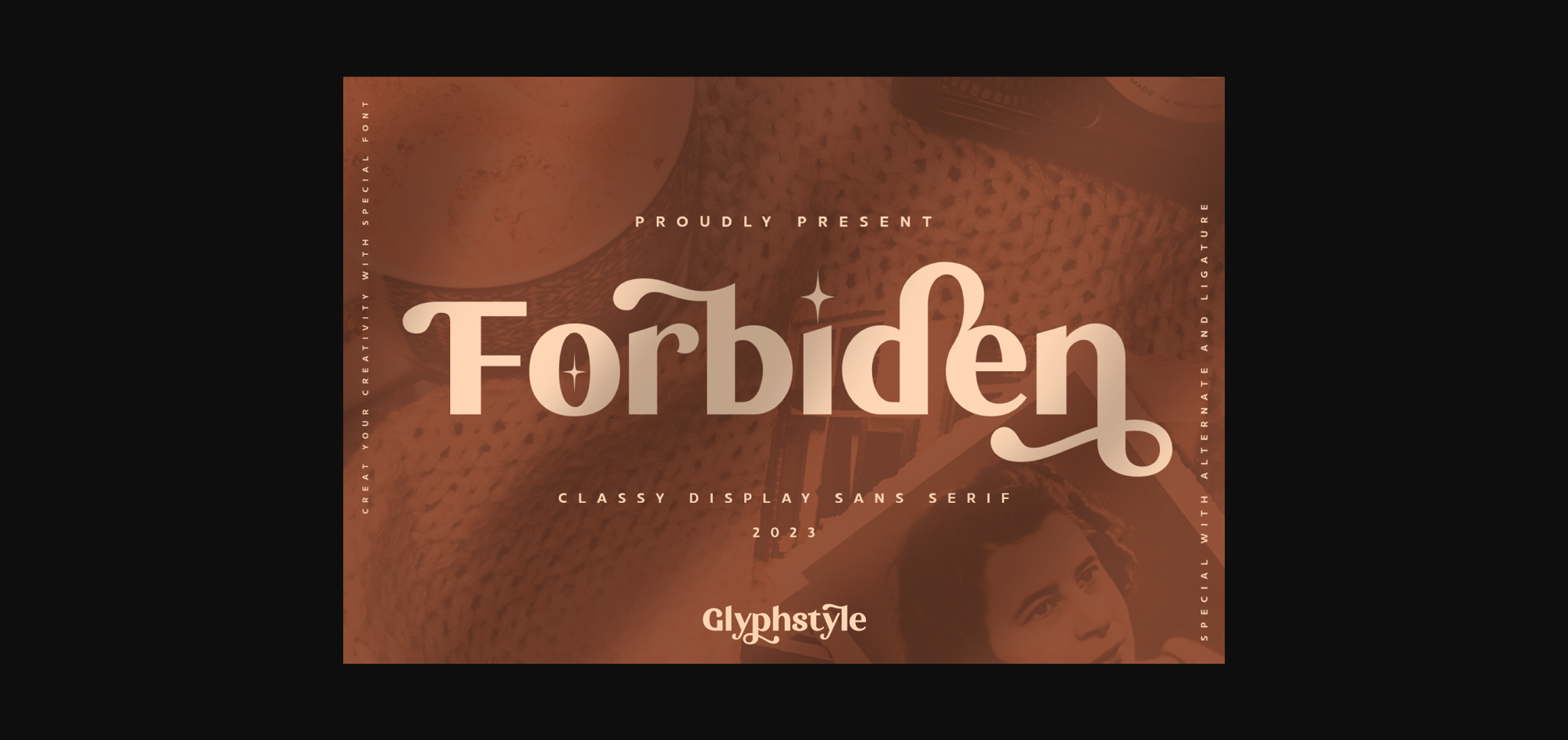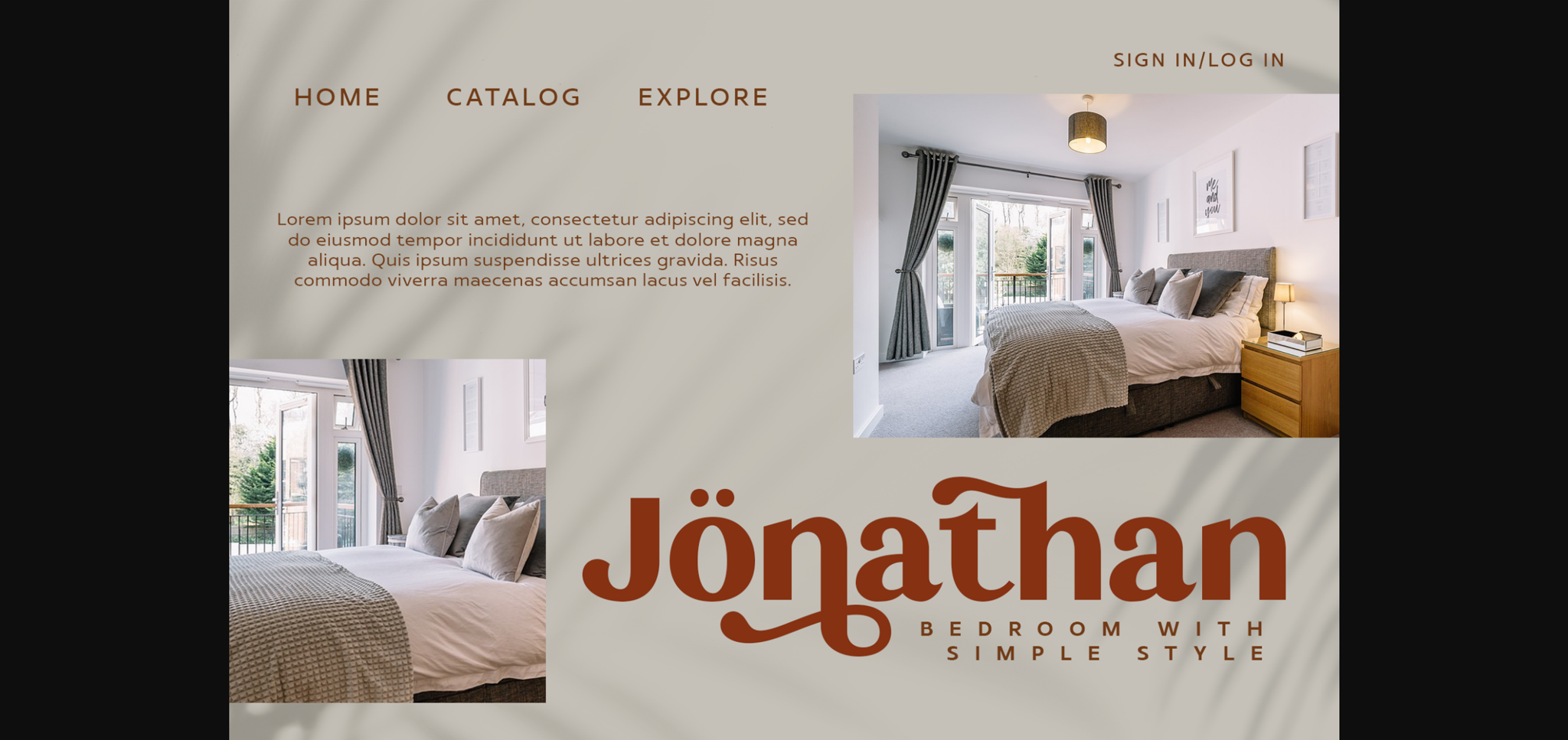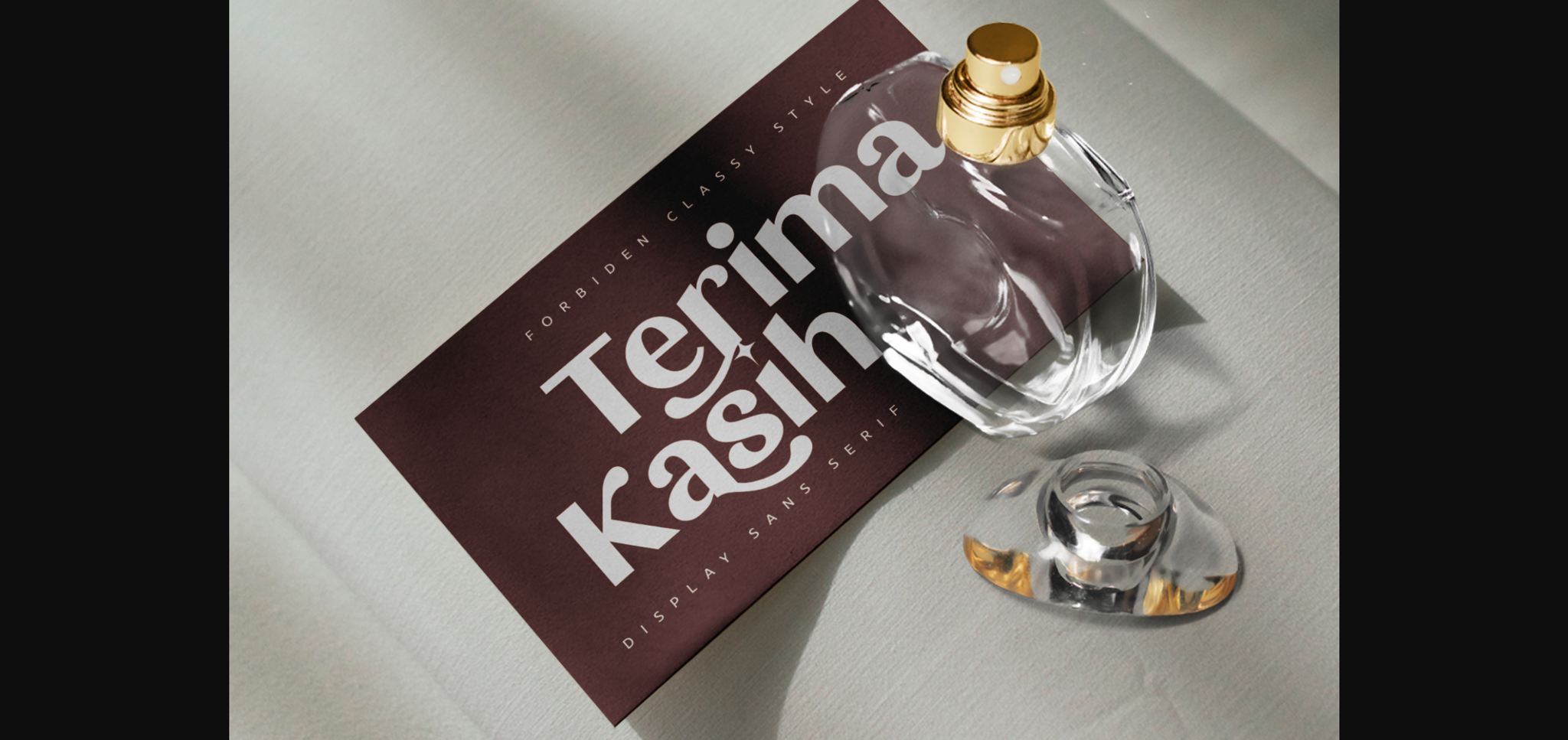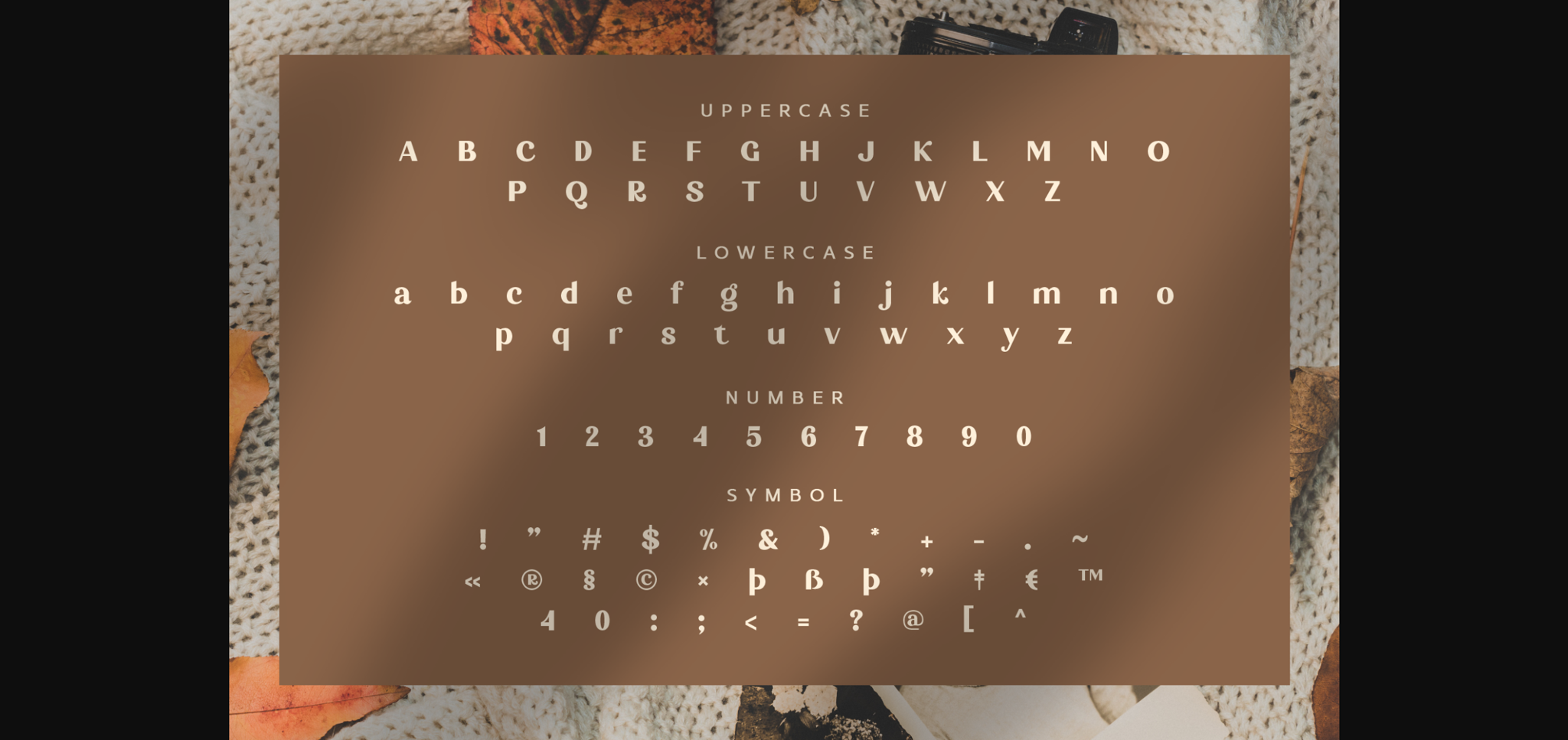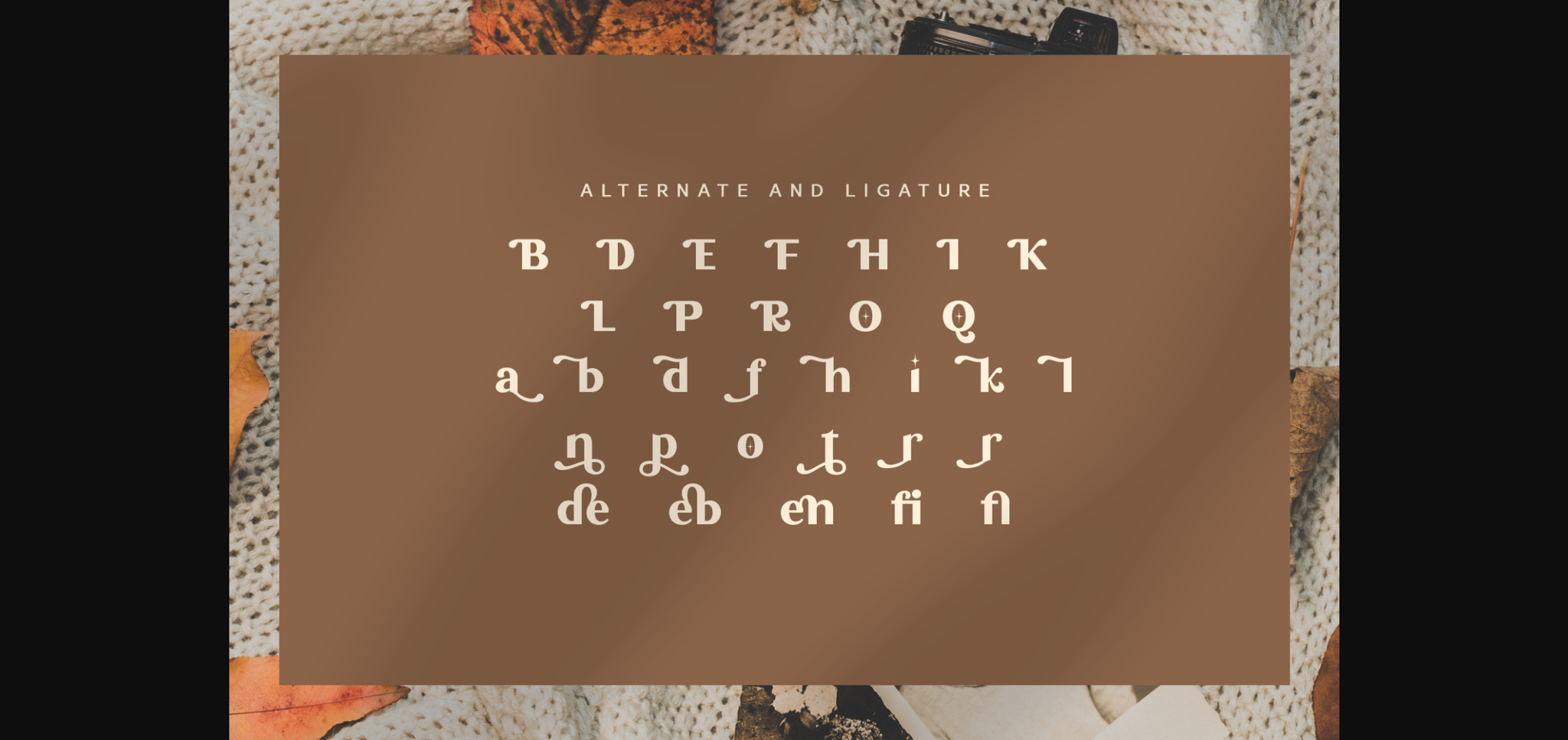
About Forbiden Font
Forbiden is a classic looking sans serif display font. There are several alternatives available to beautify the letters. Display fonts elegantly and classically.
Forbiden is perfect for branding projects, logos, wedding designs, social media posts, advertisements, product packaging, product designs, labels, photography, watermarks, invitations, stationery and any project that requires a font with Classy sans serif